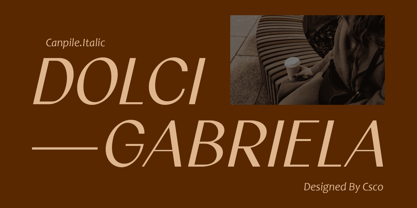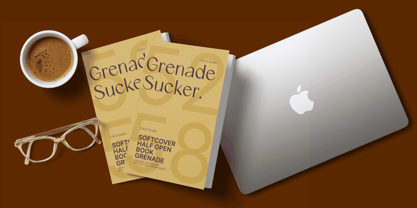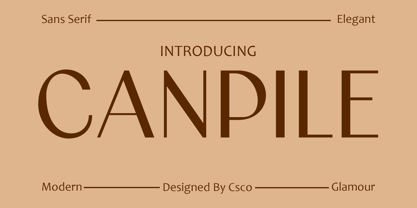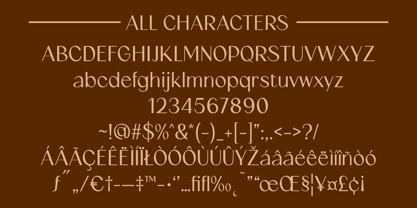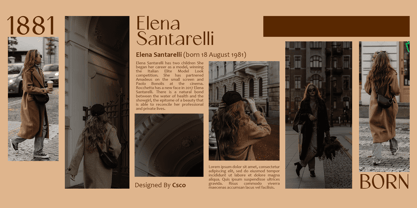
Canpile
by Craft Supply Co
The Canpile Font Family was designed by Trio Nazzar Saputra, Wahyu Hadi Yuana and published by Craft Supply Co. Canpile contains 2 styles and family package options.
Canpile Font: A Modern Marvel of Typography
Stylish Simplicity
Canpile, a beacon of modernity, combines sans serif simplicity and style, establishing itself as a go-to choice for contemporary editorial design.
Versatility Unleashed
From editorial layouts to diverse applications, Canpile effortlessly adapts, proving its versatility in delivering a stylish punch to any design project.
Elevate Your Designs
The modernity embedded in Canpile elevates your designs, infusing them with a touch of sophistication that captures attention and exudes professionalism.
Editorial Excellence
Canpile’s sleek and structured design makes it the epitome of editorial excellence, ensuring your content is presented with clarity, class, and modern appeal.
Conclusion
Canpile isn’t just a font; it’s a design companion. With its modern aesthetics, versatility, and editorial prowess, Canpile transforms every project into a masterpiece of contemporary elegance. Explore the endless possibilities of modern typography with Canpile.